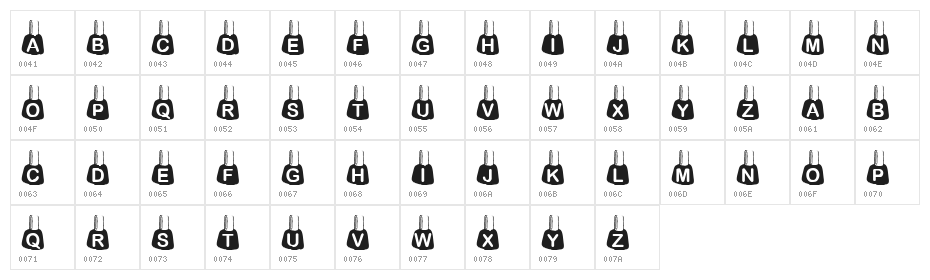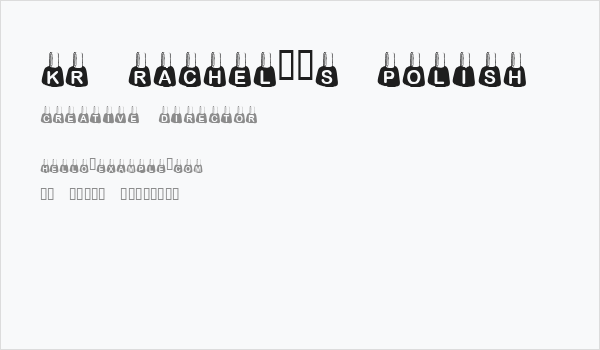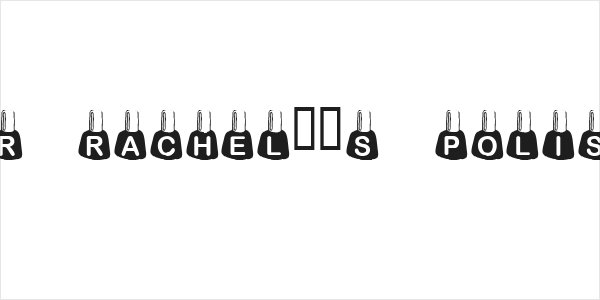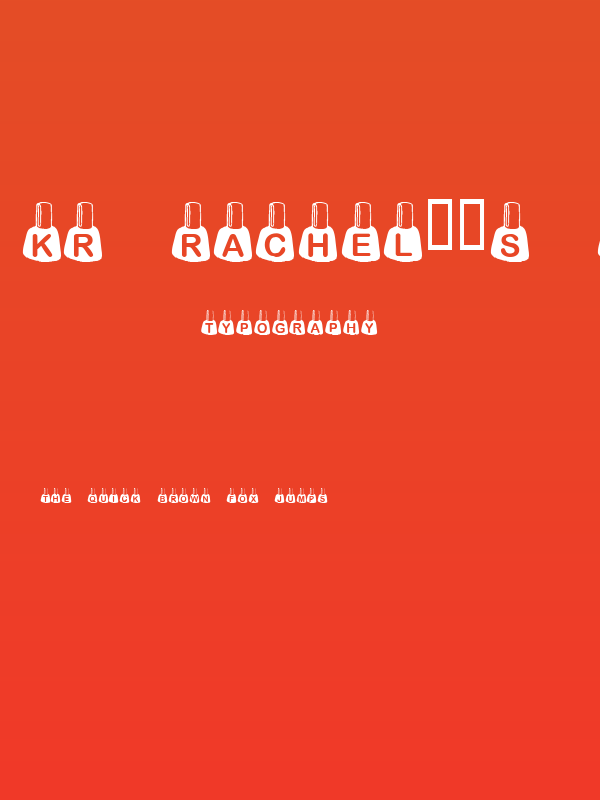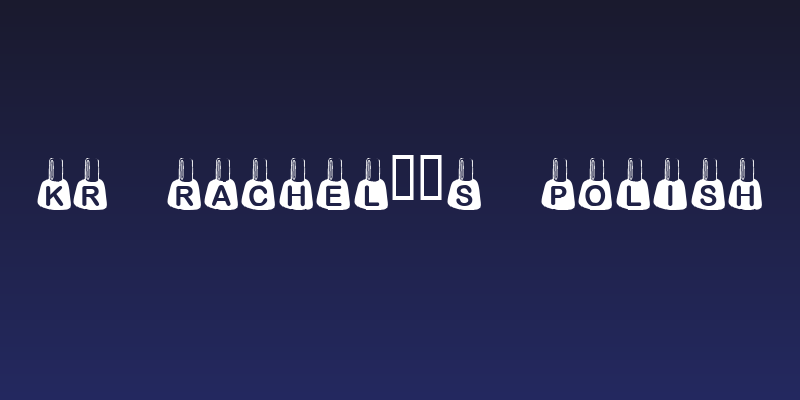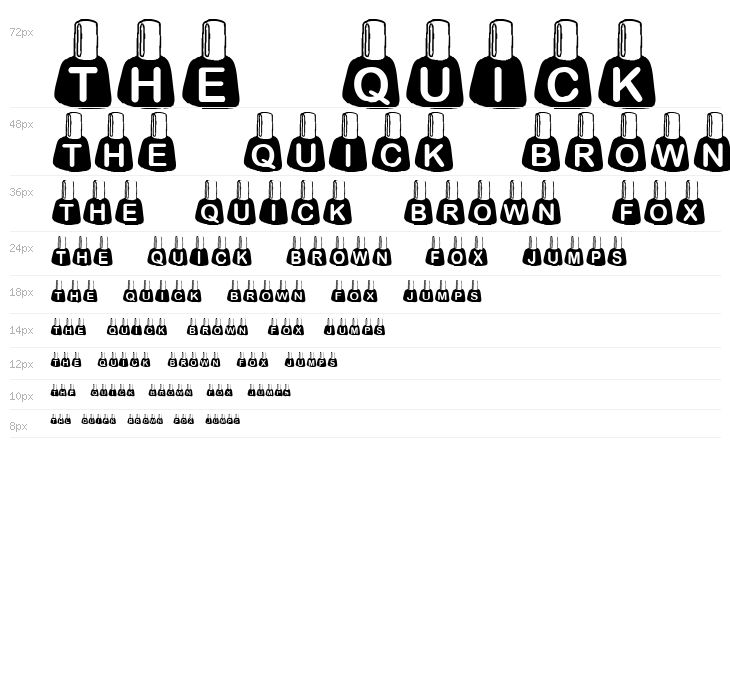
KR Rachel's Polish Font
KR Rachel's Polish Description
This font features bold, uppercase letters encased in a unique design resembling nail polish bottles. Each character is presented in a solid, black silhouette with a white letter centered inside. The style is playful and decorative, making it stand out with its novelty appearance. The font lacks lowercase letters and numbers, focusing solely on uppercase alphabetic characters. The overall design is eye-catching and suitable for creative projects that require a fun and distinctive look.
| Use Case | Logos, Posters, Creative Branding |
| Proposed Projects | Ideal for beauty-related branding, playful invitations, or creative posters. |